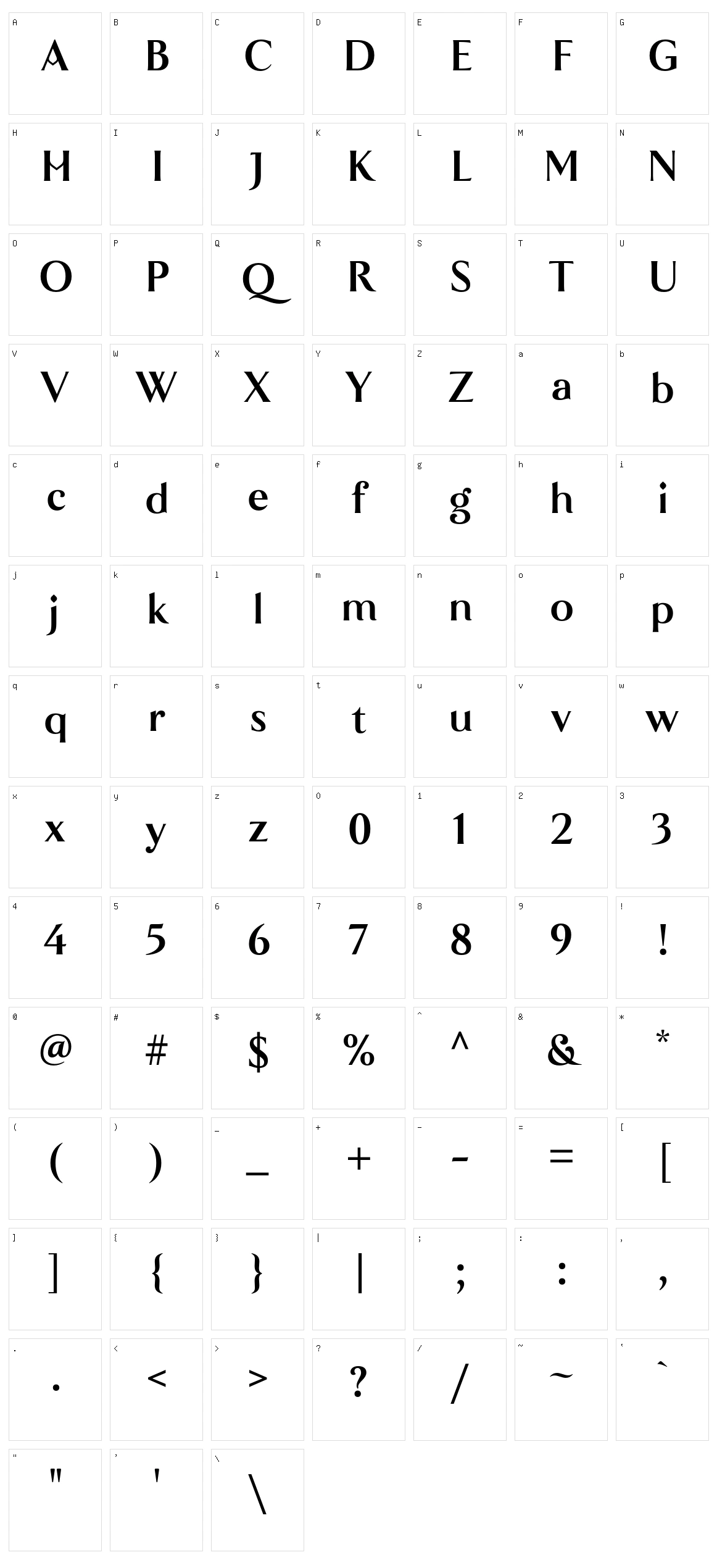
Histograph is an elegant and trendy serif font. It is PUA encoded which means you can access all of the glyphs and swashes with ease! Fall in love with its incredibly versatile style and use it to create spectacular designs!